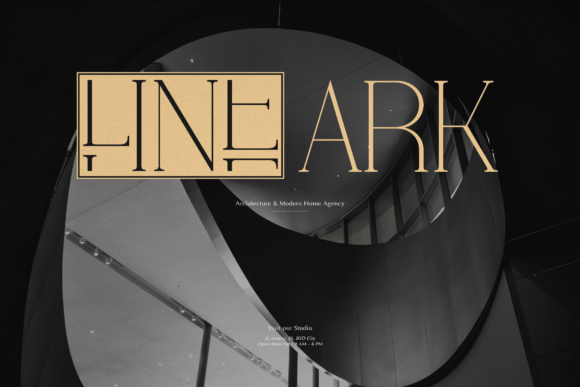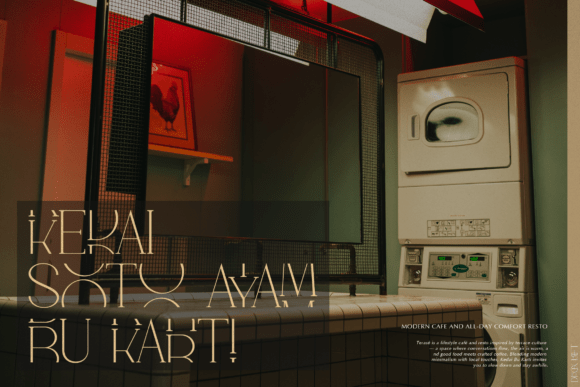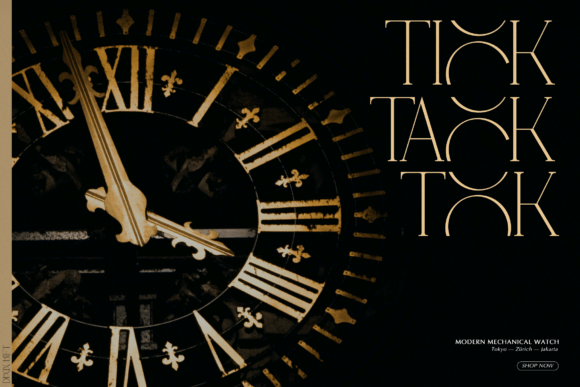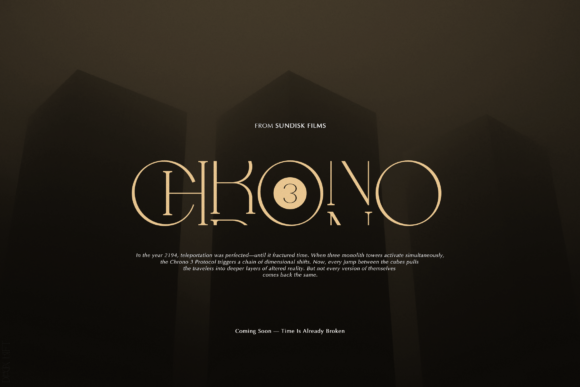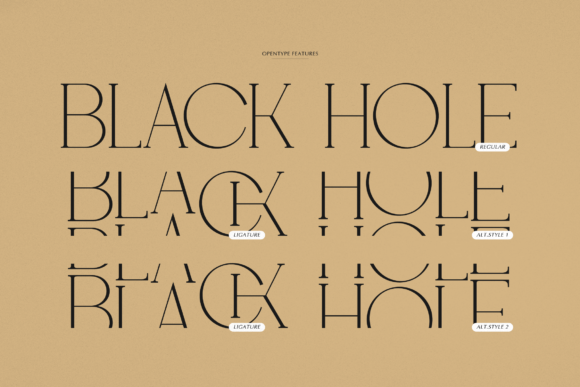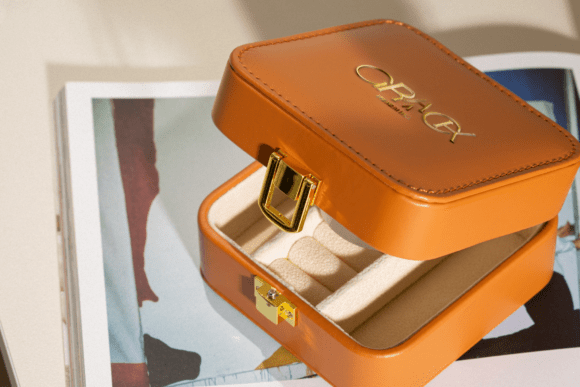
Introducing Deck Rift: A Futuristic Serif Font for the Bold and Avant-Garde
In the realm of typography, few fonts have managed to capture the essence of futuristic elegance and editorial flair as seamlessly as Deck Rift. This cutting-edge experimental serif font is designed to push the boundaries of conventional typography, making it a perfect fit for sci-fi covers, avant-garde branding, and bold visual identities.
The Inspiration Behind Deck Rift
Deck Rift draws inspiration from the surreal landscapes of glitched portals and digital wormholes. The font’s creator aimed to capture the essence of these distorted digital realms, balancing refined form with surreal distortion. The result is a font that exudes a sense of otherworldly sophistication, perfect for designers and crafters looking to add a touch of futurism to their work.
Unique Features of Deck Rift
So, what sets Deck Rift apart from other fonts? Here are some of its standout features:
- Unique Ligatures: Deck Rift boasts a range of unique ligatures that add a touch of elegance and sophistication to any text. These ligatures are designed to seamlessly integrate with the font’s geometric quirks, creating a cohesive and visually stunning effect.
- Alternate Characters: The font features a range of alternate characters, allowing designers to experiment with different styles and variations. Whether you’re looking for a bold and dramatic look or a more subtle and refined aesthetic, Deck Rift’s alternate characters have got you covered.
- Geometric Quirks: Deck Rift’s geometric quirks are a defining feature of the font. These quirks add a touch of surrealism and futurism to the text, making it perfect for sci-fi covers, avant-garde branding, and bold visual identities.
Applications of Deck Rift
So, where can you use Deck Rift? The possibilities are endless, but here are some ideas to get you started:
- Sci-Fi Covers: Deck Rift’s futuristic elegance and surreal distortion make it a perfect fit for sci-fi covers. Whether you’re designing a book cover or a movie poster, this font is sure to grab attention.
- Avant-Garde Branding: If you’re looking to create a bold and eye-catching brand identity, Deck Rift is an excellent choice. The font’s unique ligatures, alternate characters, and geometric quirks make it perfect for brands that want to stand out from the crowd.
- Bold Visual Identities: Deck Rift’s surreal and futuristic aesthetic makes it perfect for bold visual identities. Whether you’re designing a logo, a website, or a social media campaign, this font is sure to make a statement.
Tips for Using Deck Rift
Here are some tips for getting the most out of Deck Rift:
- Experiment with Ligatures: Deck Rift’s ligatures are a key feature of the font. Experiment with different ligatures to find the ones that work best for your design.
- Mix and Match Alternate Characters: The font’s alternate characters are designed to be mixed and matched. Don’t be afraid to experiment with different combinations to find the one that works best for your design.
- Play with Geometric Quirks: Deck Rift’s geometric quirks are a defining feature of the font. Experiment with different quirks to find the ones that add the most visual interest to your design.
Deck Rift is a cutting-edge experimental serif font that’s perfect for designers and crafters looking to add a touch of futurism to their work. With its unique ligatures, alternate characters, and geometric quirks, this font is sure to grab attention and make a statement. Whether you’re designing a sci-fi cover, an avant-garde brand identity, or a bold visual identity, Deck Rift is an excellent choice.